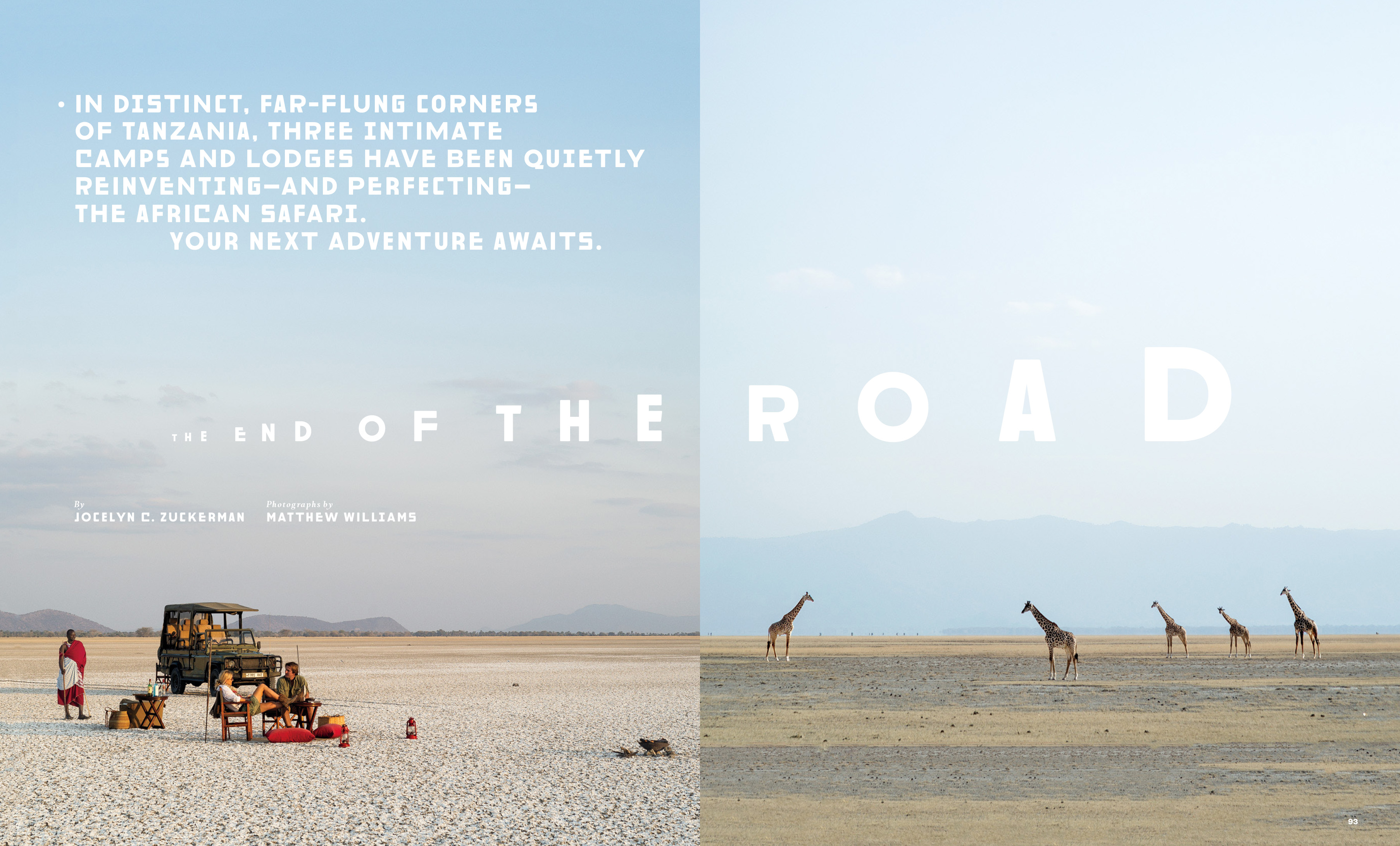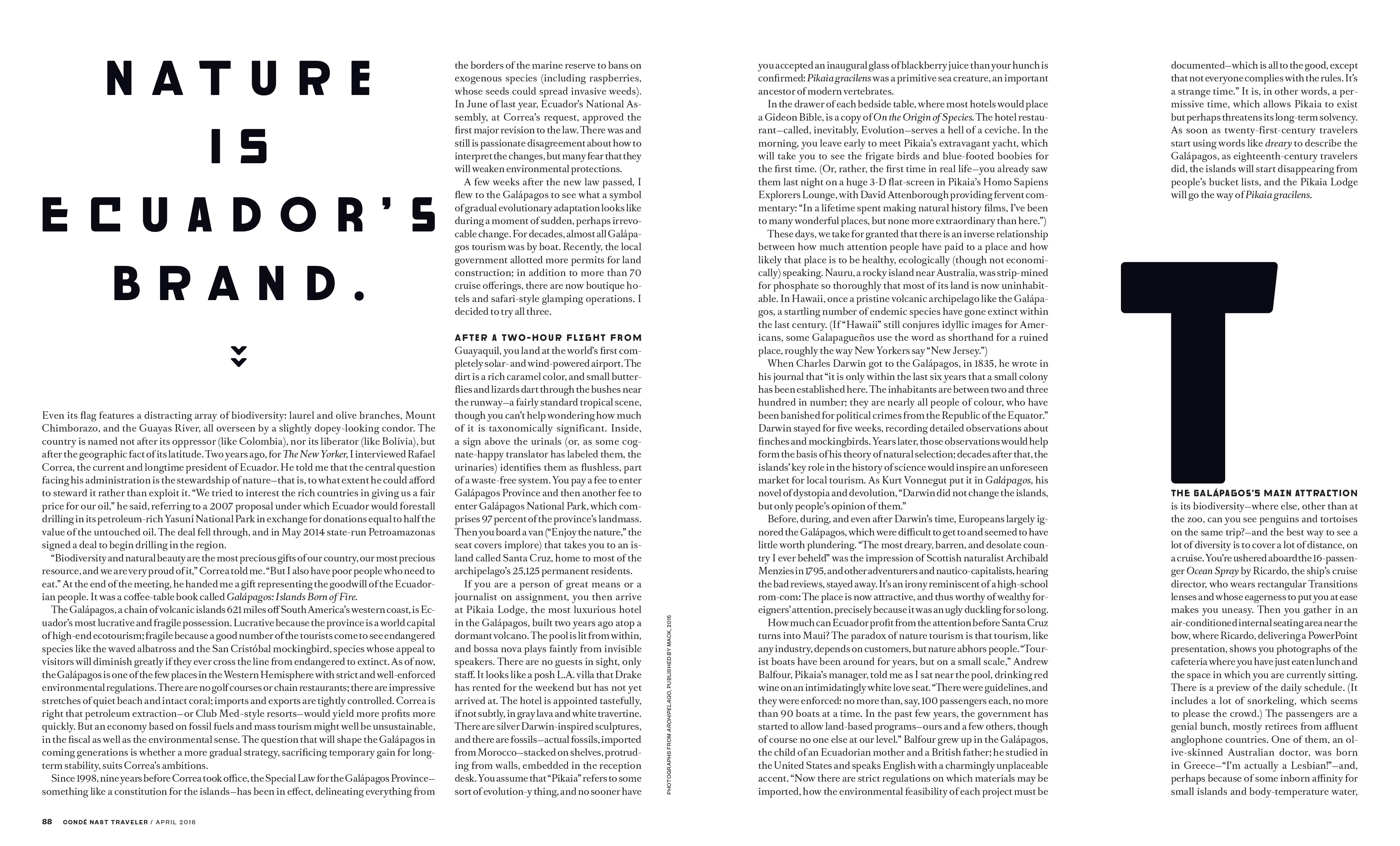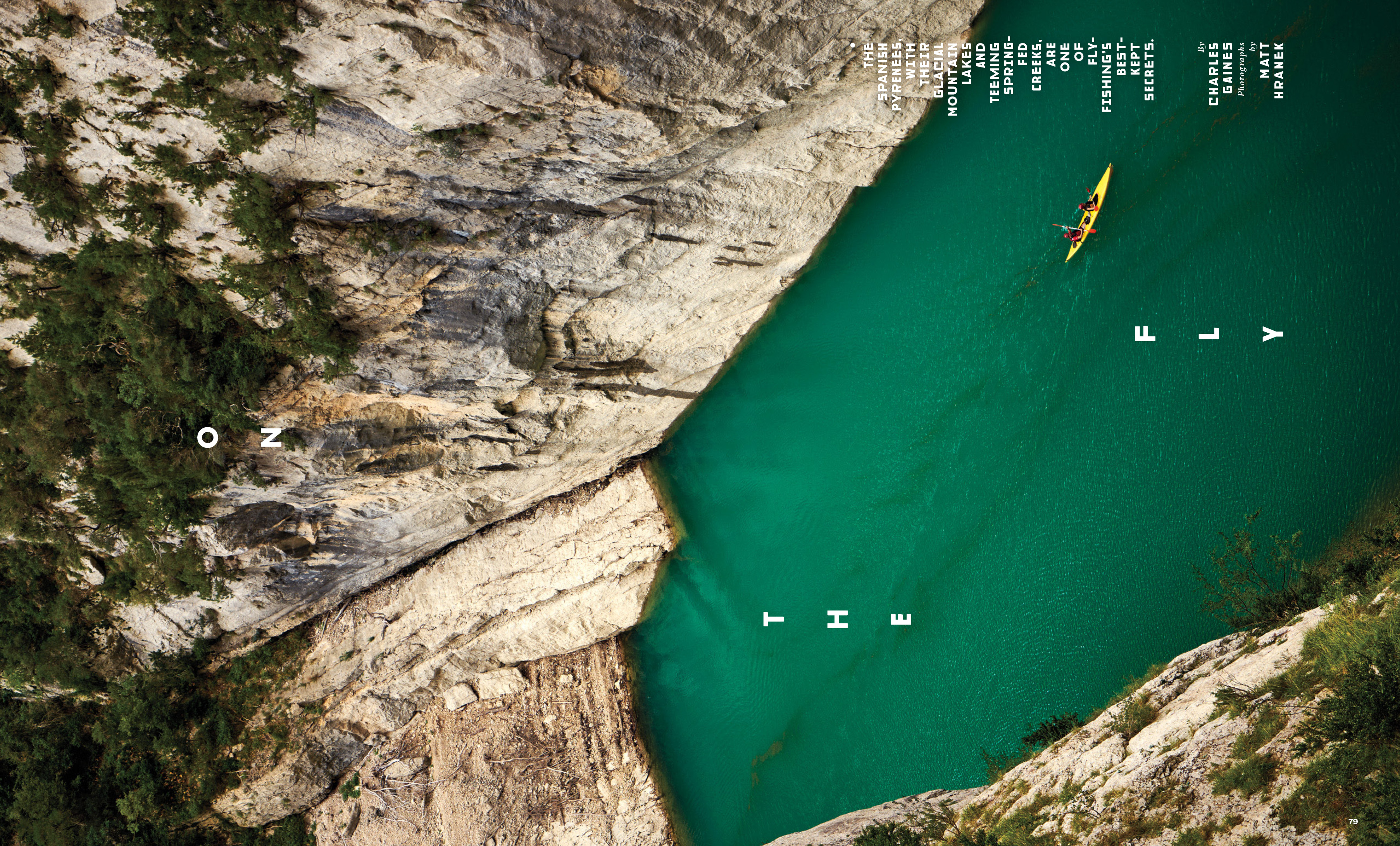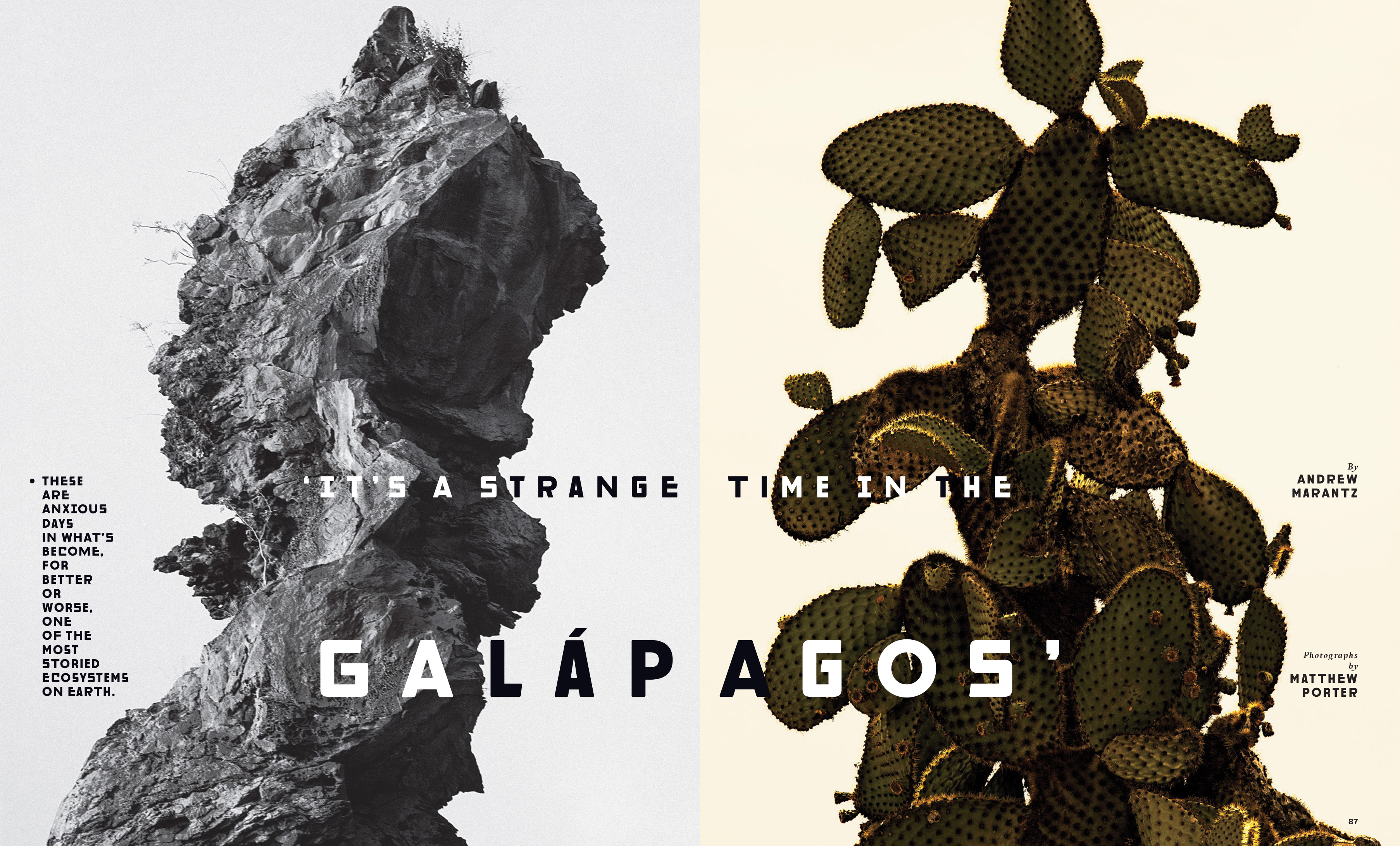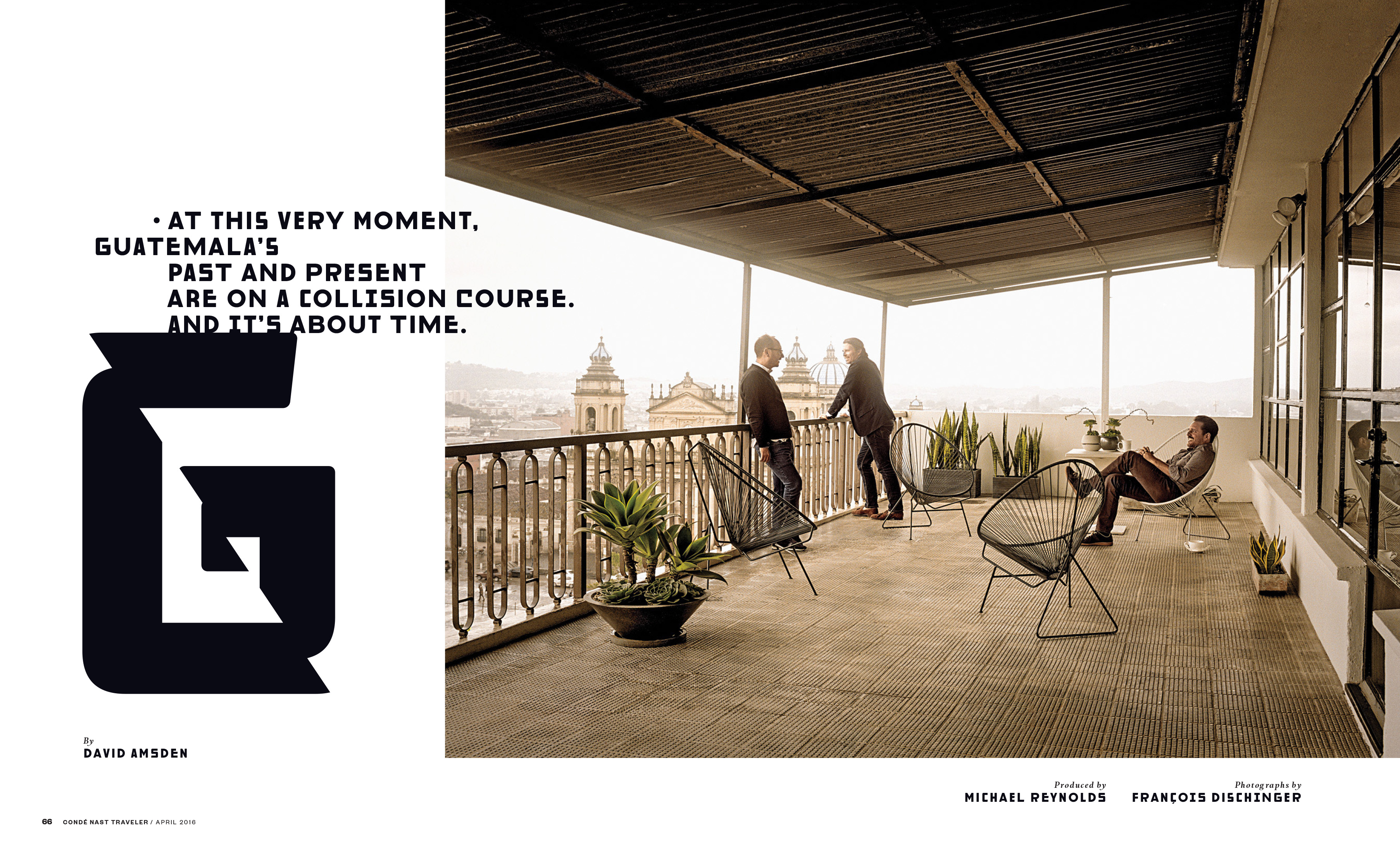
Caleb Bennett sent me a photo of a sign he saw in Mexico City and wondered if I could make a typeface for him based on the sign. The project seemed pretty straightforward but it resulted in a fantastic collaboration between us that resulted in a typeface specifically suited to Caleb’s design sensibilities.